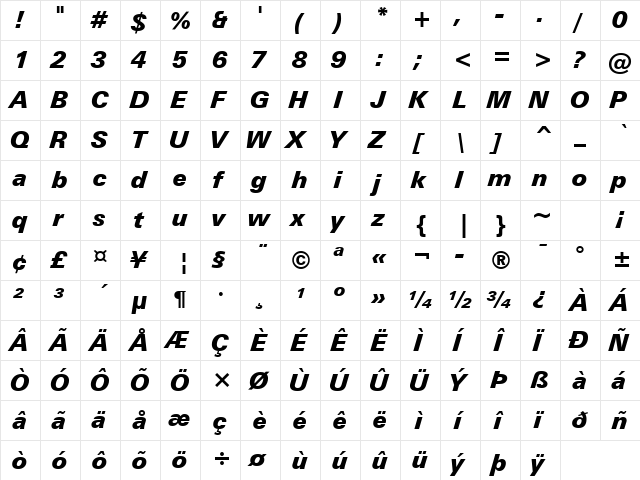
Zurich Black Italic Font Preview
Zurich Black Italic
Design Context for Zurich Typeface
Zurich offers clean, dependable letterforms without strong stylistic allegiance, making it a practical choice for designers who need flexibility. Its italic angle brings a sense of urgency and motion to the letterforms.
Pro Tip: Use Zurich for emphasis, pull quotes, and subheadings where its slanted energy can add rhythm to the layout.